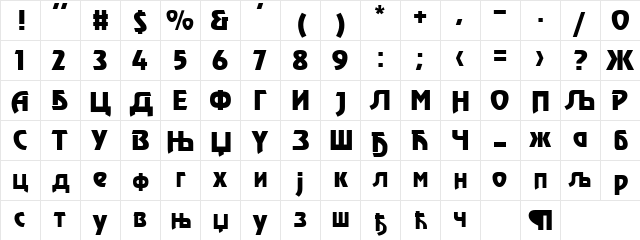
Renfrew Cirilica Regular
Design Context for Renfrew Cirilica Typeface
Renfrew Cirilica is a composed and adaptable typeface that performs quietly and consistently across a wide range of design contexts.